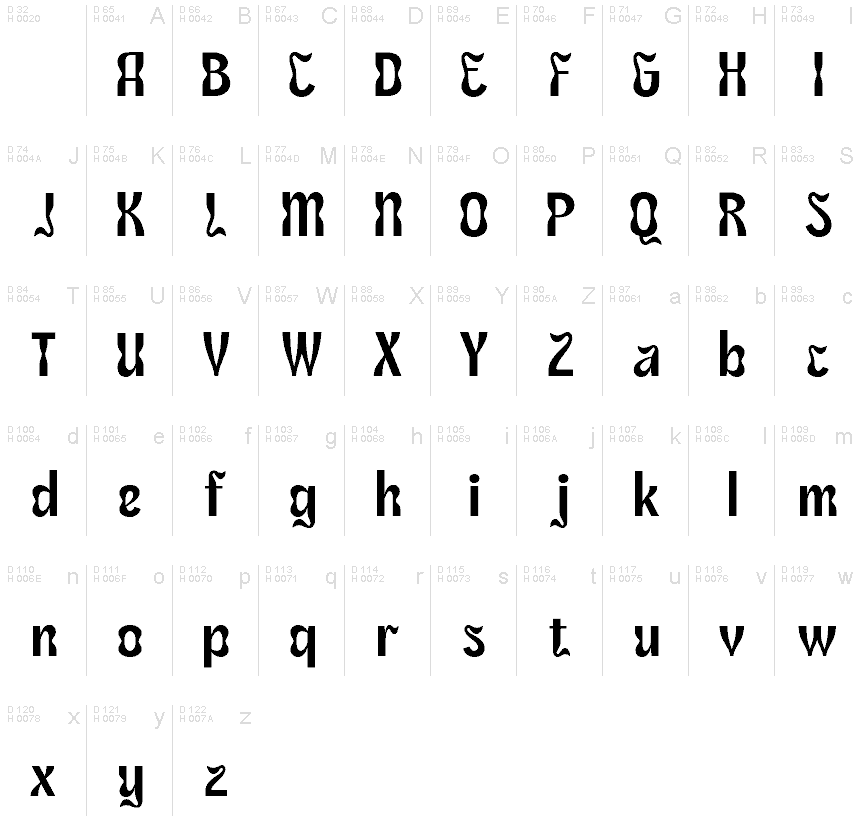
CS Roden Regular Demo
CS Roden font by Craft Supply Co. is an expressive display font with an artistic presence created by stylized touches and flowing strokes. The letters have an organic feel that makes this typeface less formal and more accessible.
Use it for logo design, packaging design, branding, artbooks, magazines, book covers, illustrations captions, advertising campaigns projects, social media graphics, T-shirt designs or invitations.